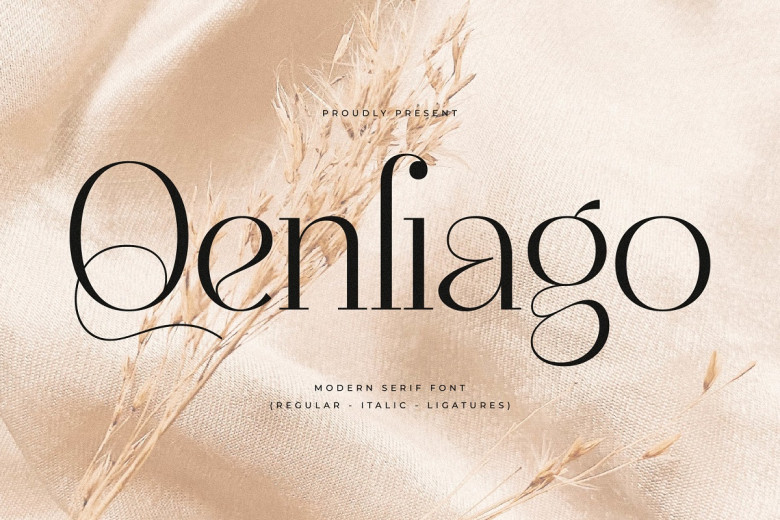
Qenliago offers an exclusive and contemporary aesthetic. As a classic serif font, this typeface can be used for luxurious logos, fashion brands, clothing lines, magazines, movie titles or books.
Qenliago Serif Font